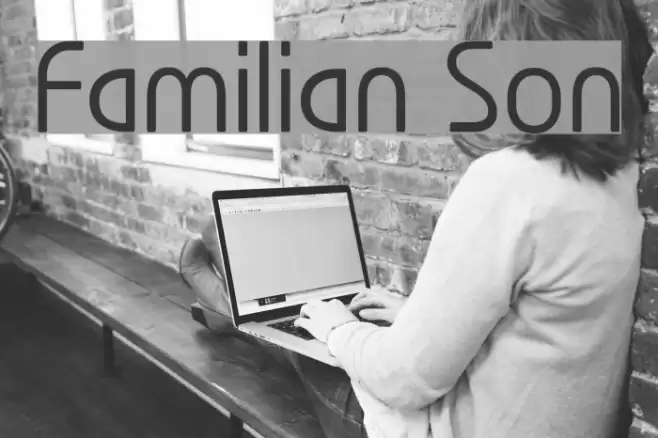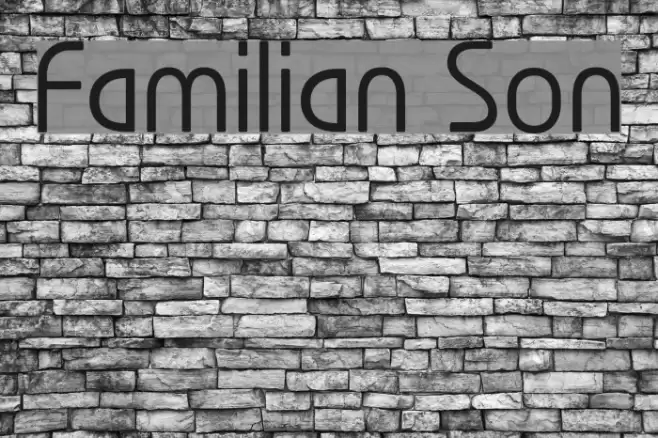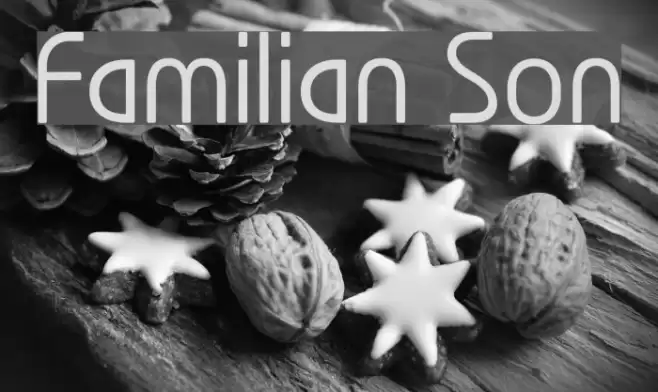
Familian Son Font
Familian Son Description
This font features a clean, modern sans-serif style with rounded edges that give it a friendly and approachable appearance. The characters are evenly spaced, contributing to a balanced and harmonious look. The uppercase letters are slightly taller than the lowercase, maintaining a consistent width throughout. Numbers are clear and legible, matching the overall aesthetic of the alphabet. Special characters are well-integrated, ensuring versatility in various applications. The design is minimalistic yet distinctive, making it suitable for a wide range of uses.
A modern, rounded sans-serif font with a clean and approachable style from Uncategorized fonts.
- Proposed Projects: Ideal for branding, web design, user interfaces, and advertising materials.
- Use Case: Logos, Headlines, Body text